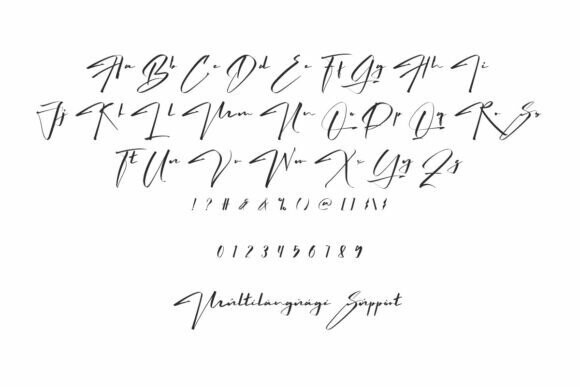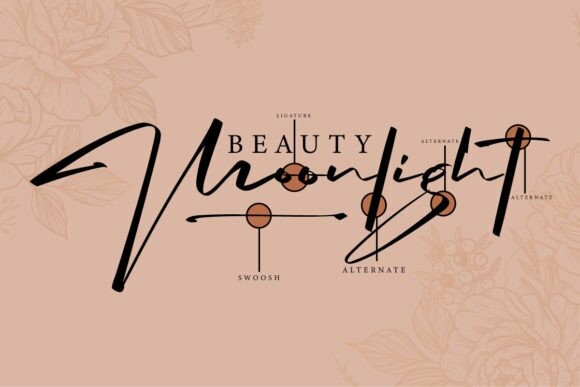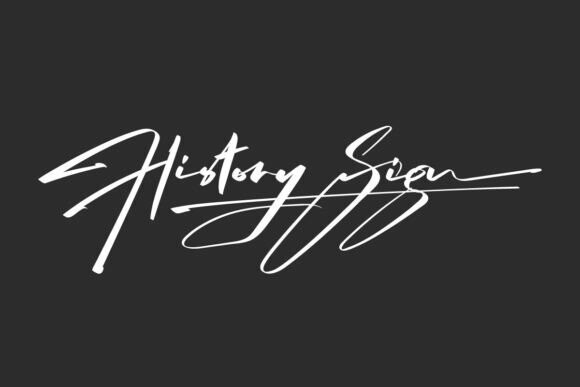
History Sign Font
Designer: vintype
History Sign Font is a stylish bold signatures script font with unique style. This font is made from a bold brush that carries a classic concept and still easy to read. This font will be suitable for many industries, such as advertisement, beauty product, event or wedding organizer, fashion, florist, handcraft, homeware, photography, and more!